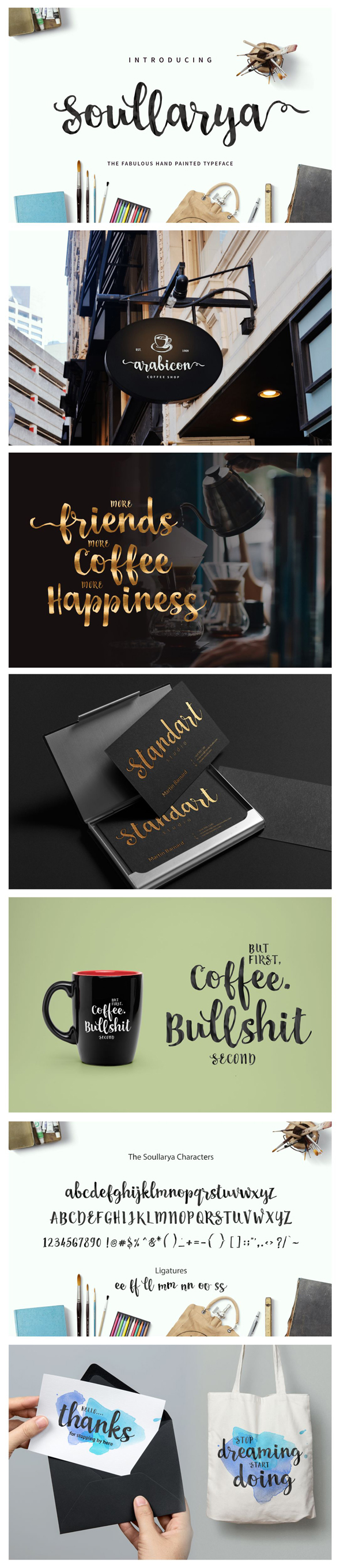
Soullarya Script
Soullarya Script Font
Soullarya is a beautiful brush script typeface inspired by free style brush lettering which is great to use in new urban and free design styles. It is bold, fun and attractive. Soullarya comes with alternate uppercase and lowercase characters, and supports international languages. Lets play with this font, you can make your own brush-lettering logo, greeting cards, poster, wedding invitation, etc.